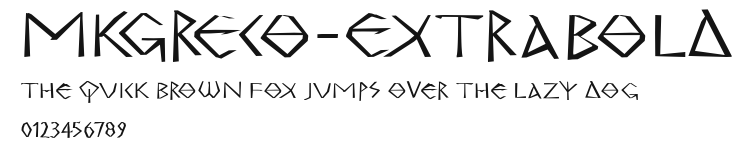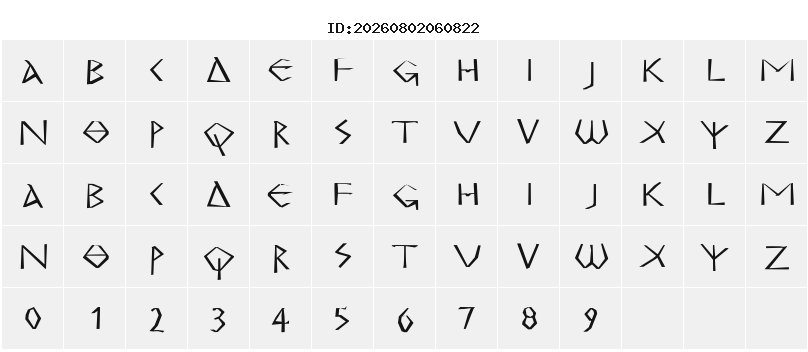
• Font Name: MKGreco-ExtraBold
• Full Font Name: MKGreco-ExtraBold
About MKGreco-ExtraBold.ttf
MKGreco-ExtraBold.ttf is a modern, elegant sans-serif font designed for ultimate readability and visual harmony. Perfect for branding, headlines, web design, and print materials.